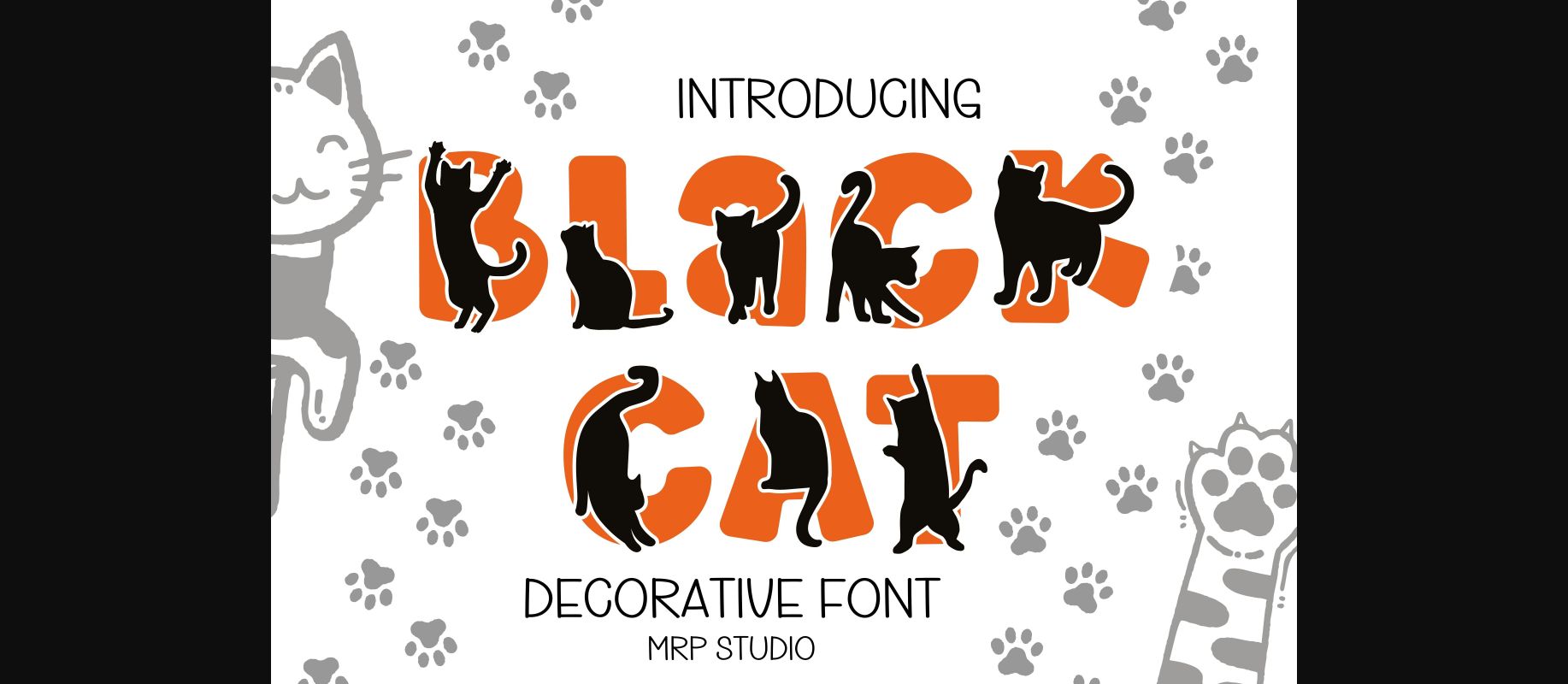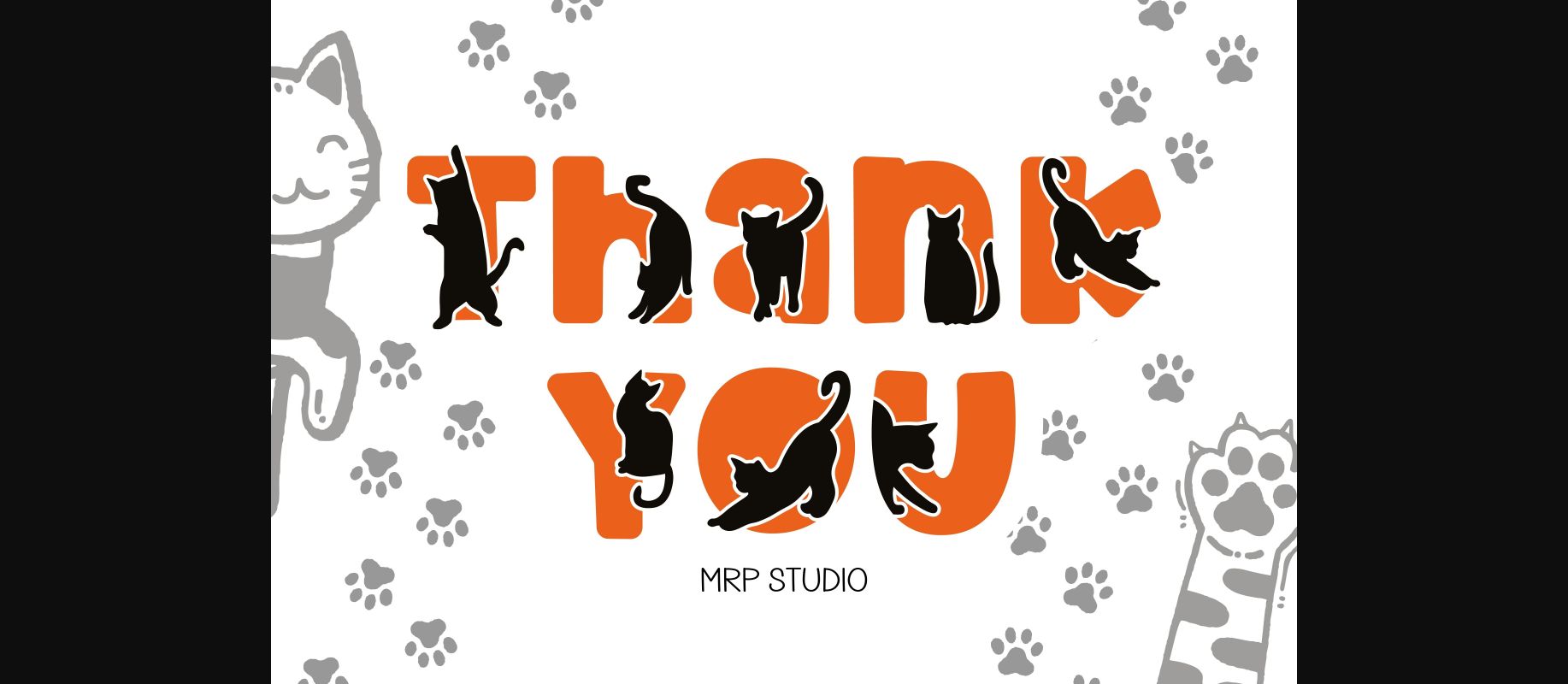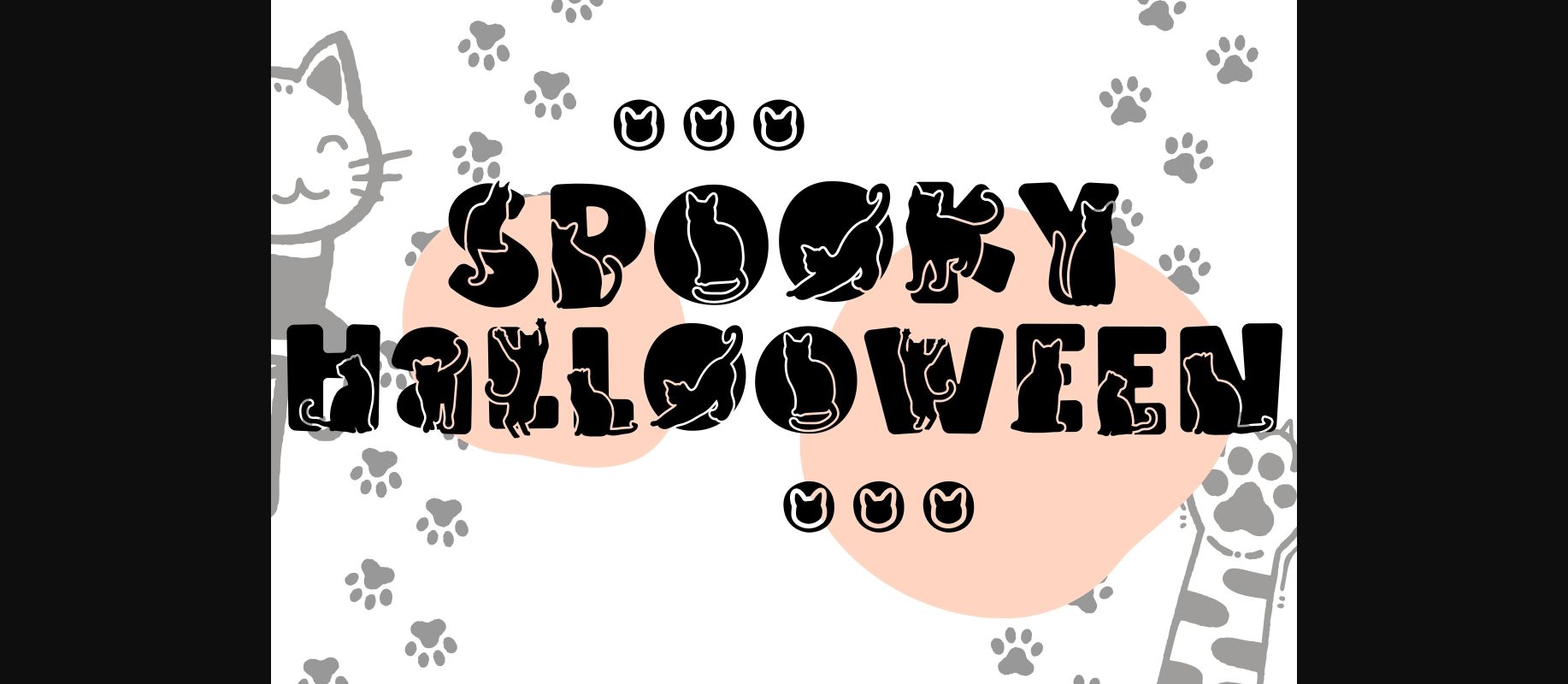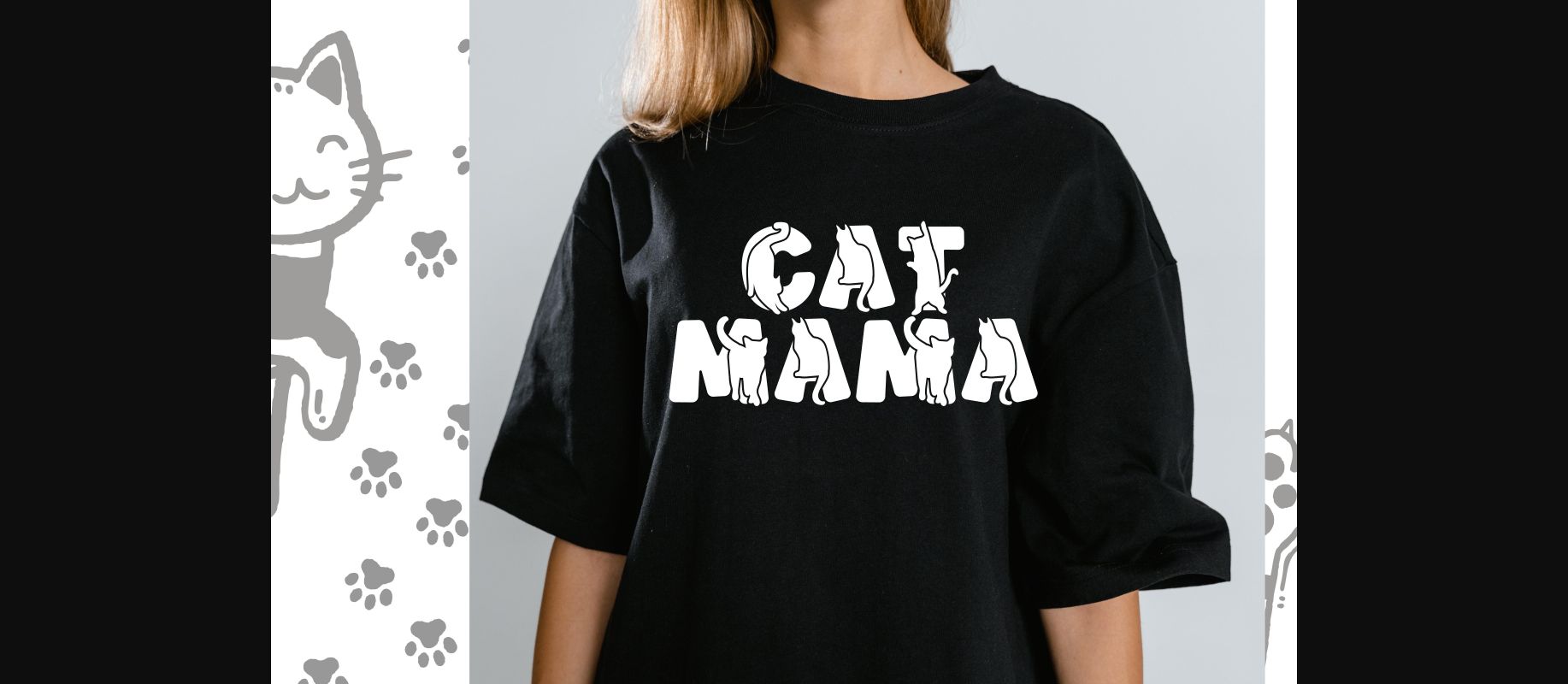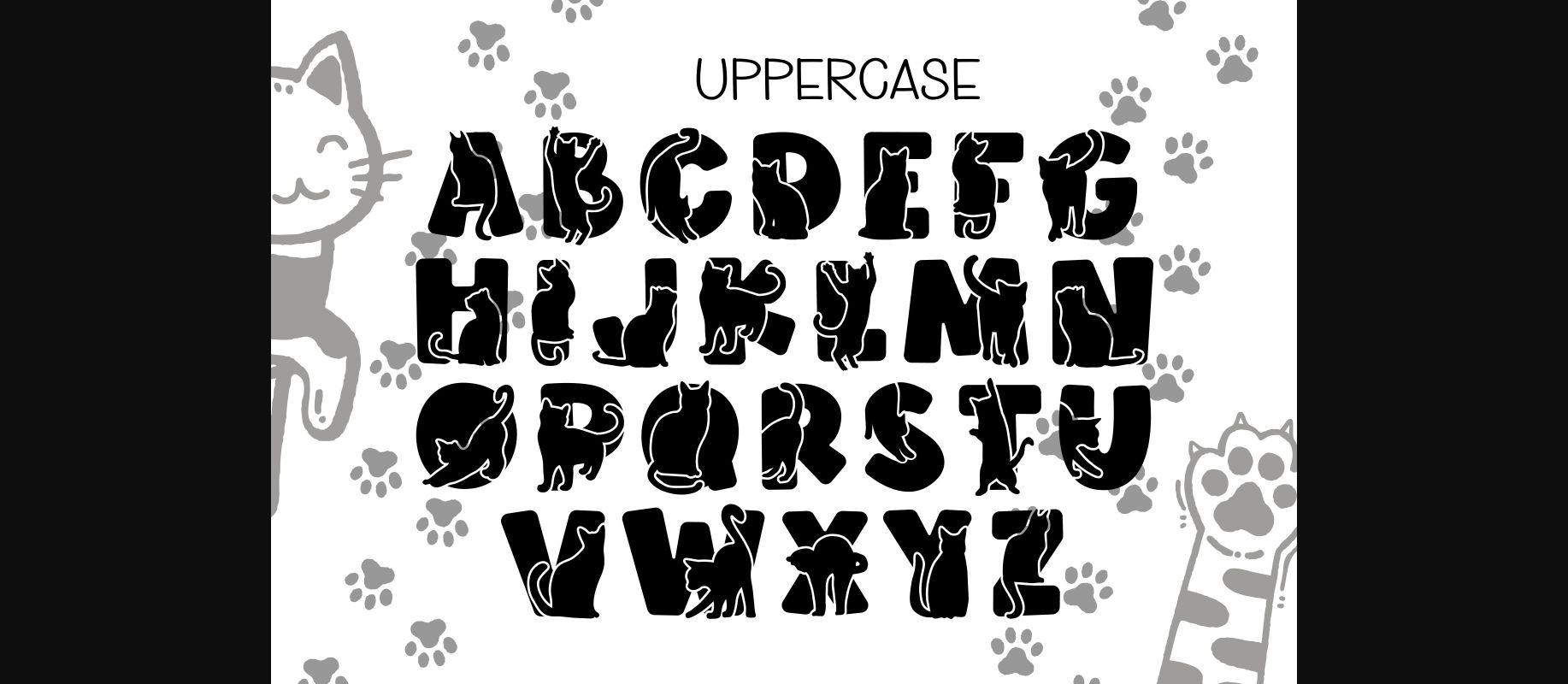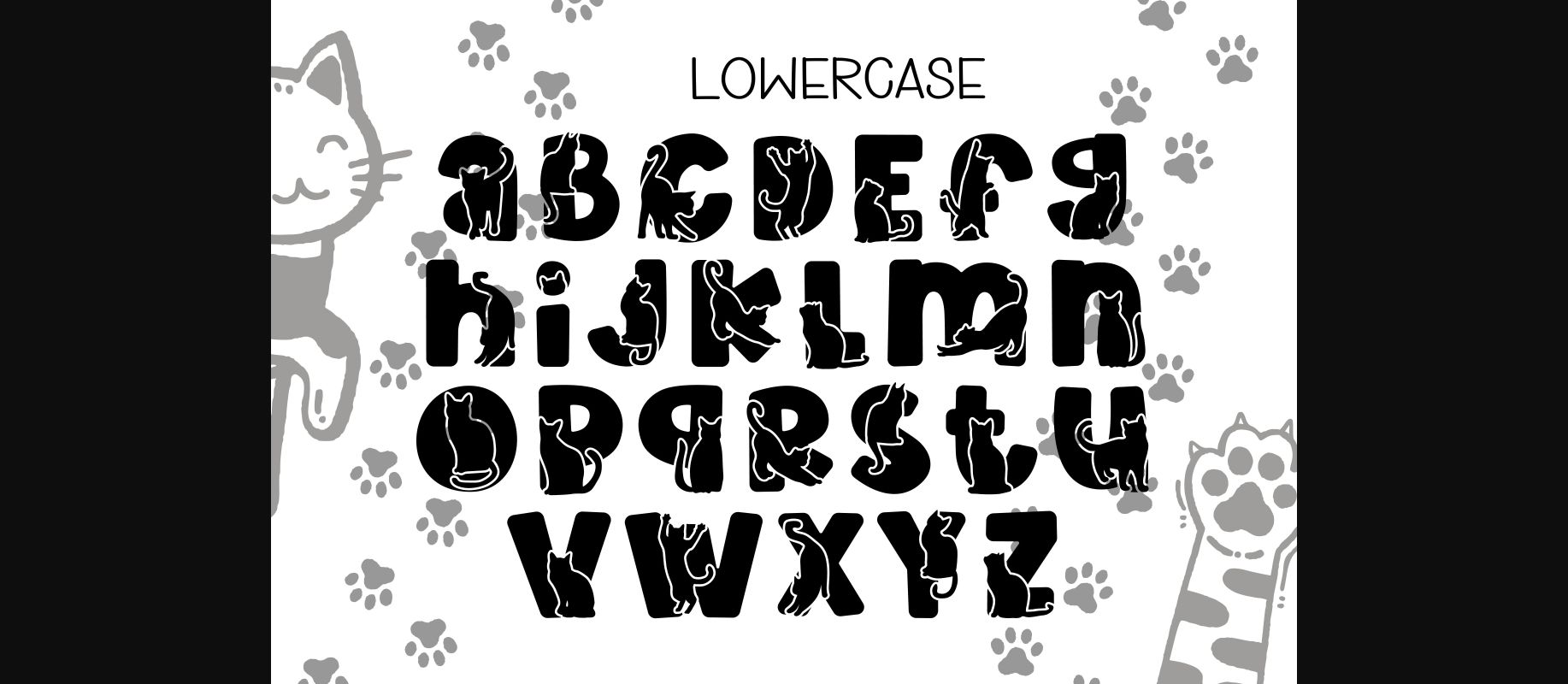
About Black Cat Font
Black Cat is designed in a spooky and adorable decorative font style. It would be awesome to your lovely Project and also your child-related project such as back to school, Halloween party decoration and much more to any topic which need bright and fun touch. Let’s try it and add it to your creative ideas and notice how it makes them stand out!